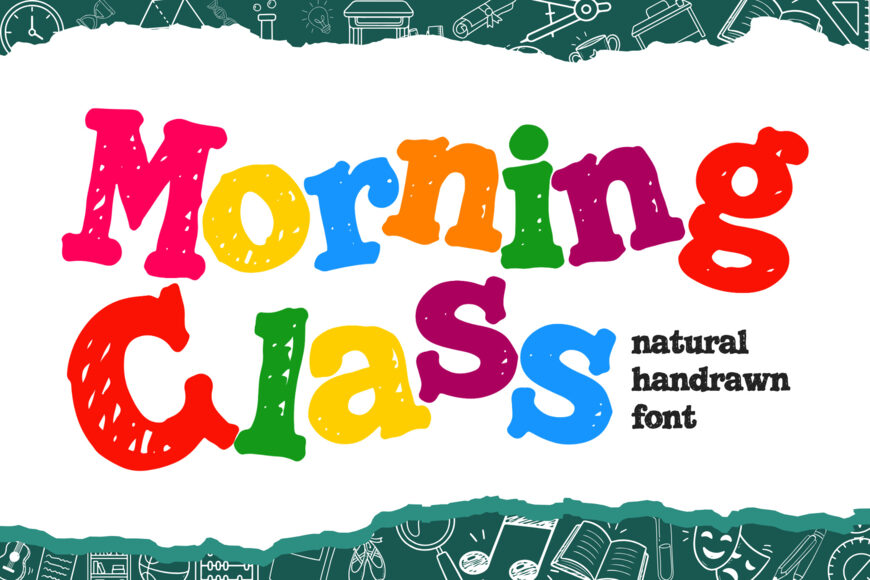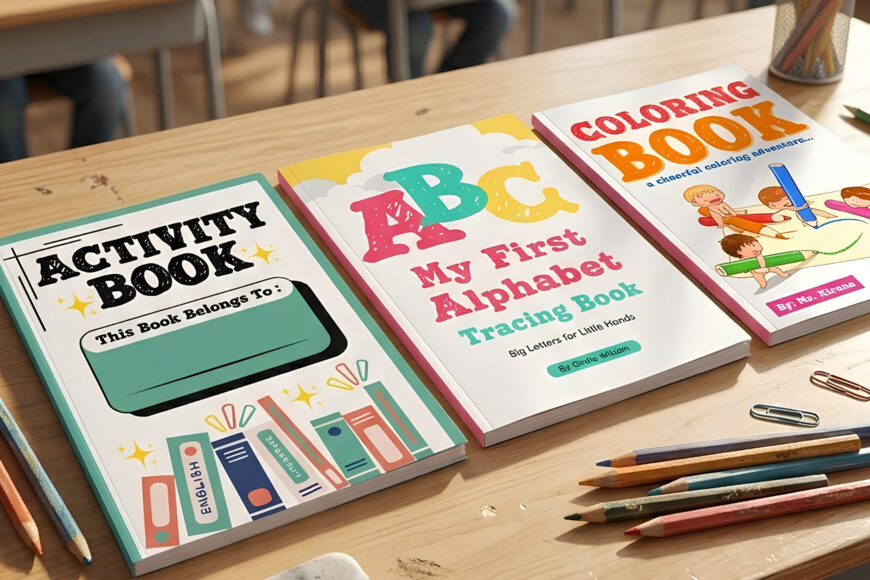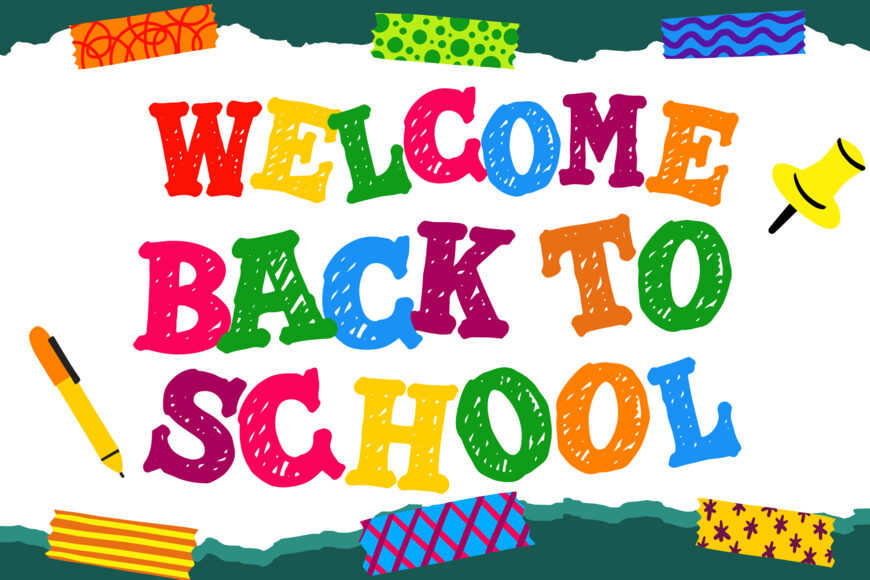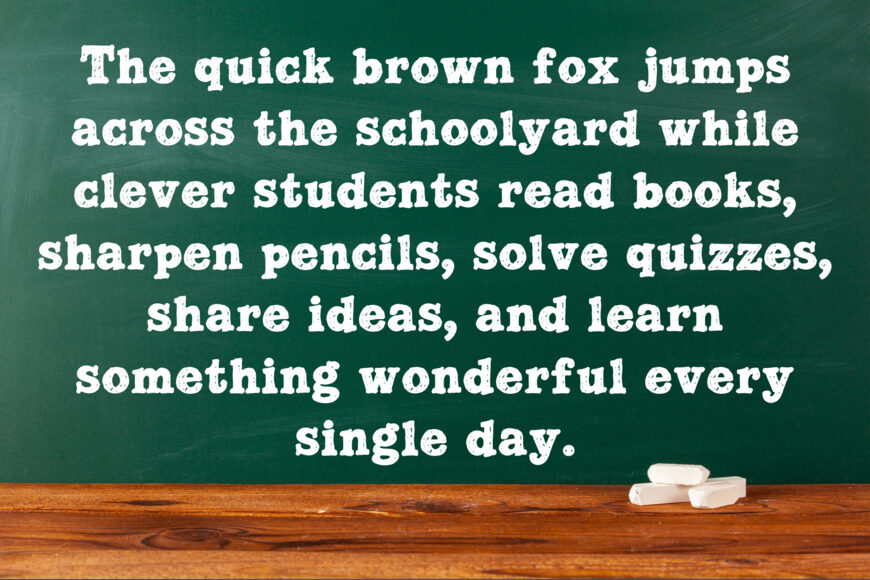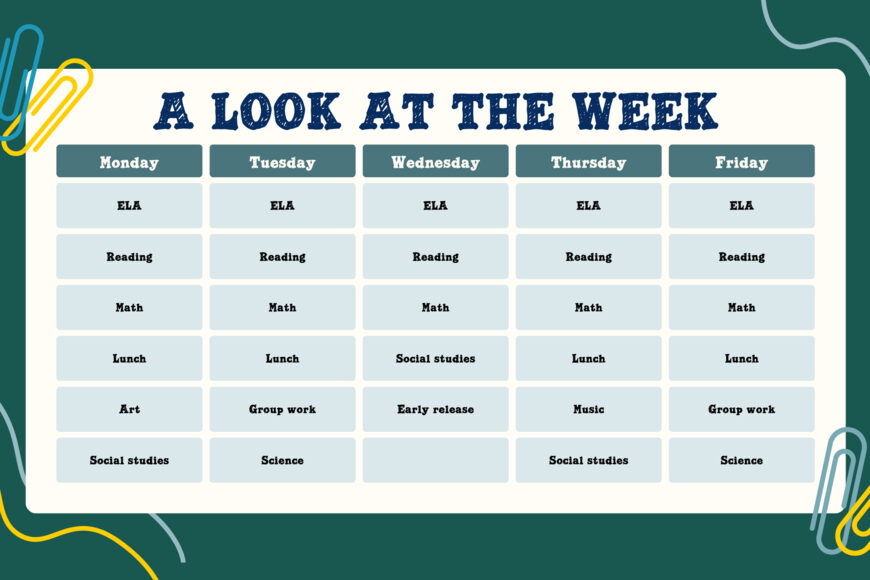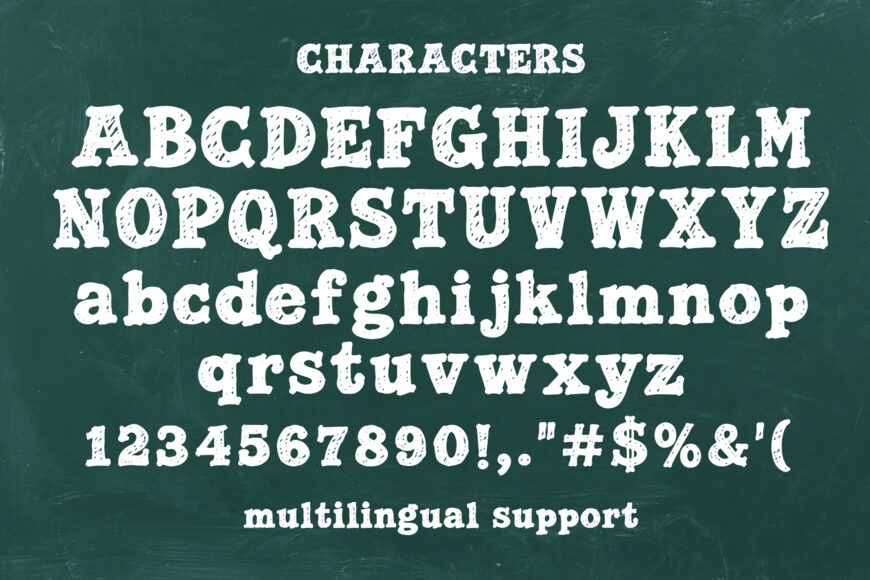
Bring playful energy, classroom fun, and authentic hand-drawn texture to your layouts with Morning Class! Crafted with heavy chalk-style strokes, organic line fills, and chunky proportions, this natural handdrawn font captures the nostalgic charm of classroom blackboards and crayon drawings. Its cheerful, bold rhythm turns any headline into an instant eye-catcher.